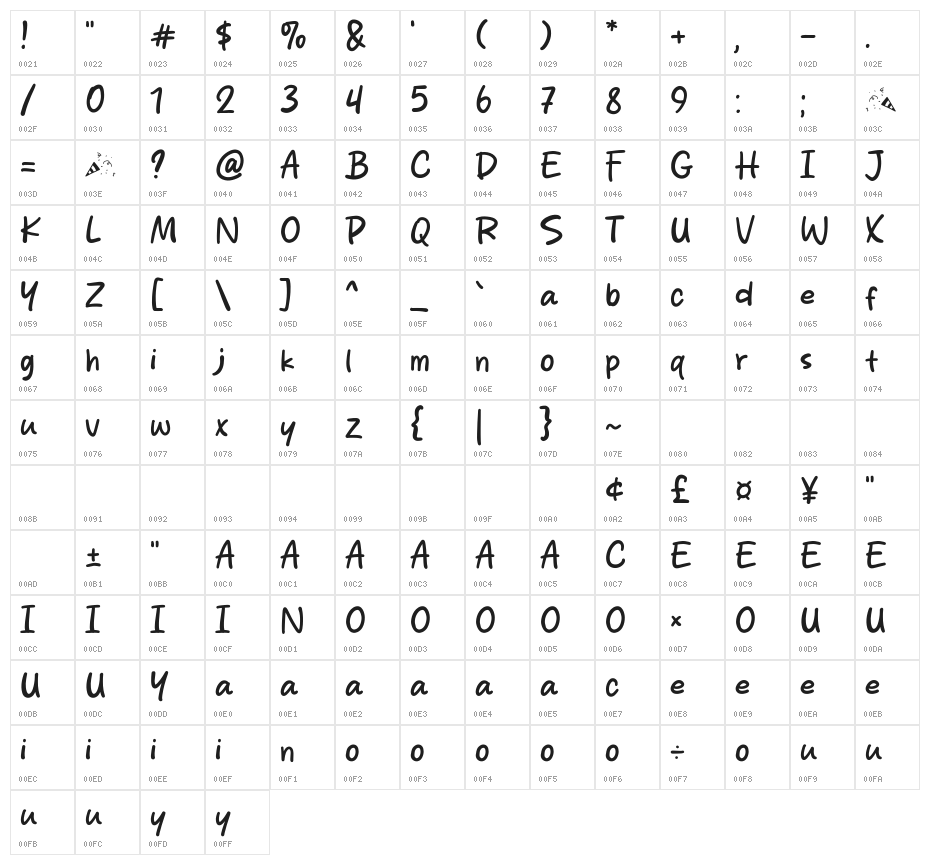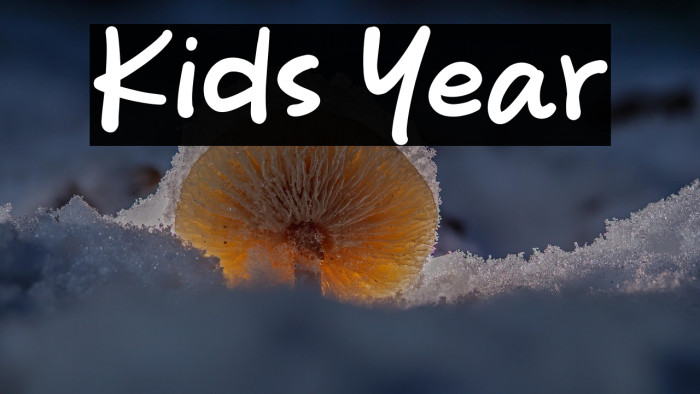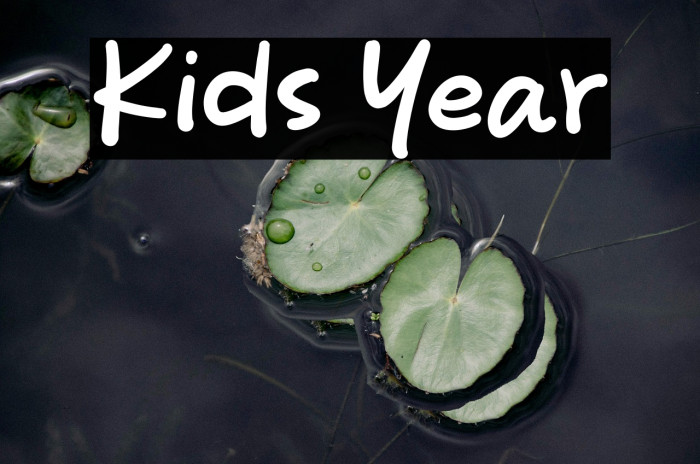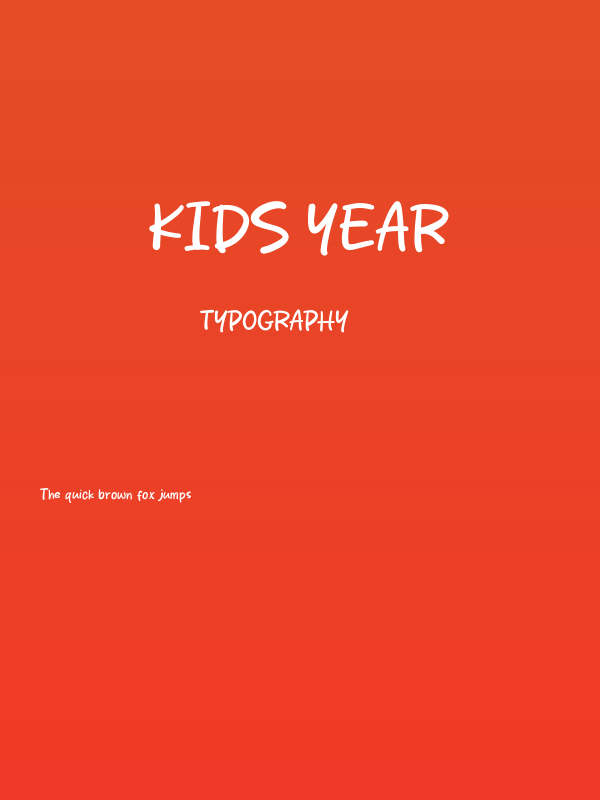
Kids Year Font
Kids Year Description
This playful and informal font exudes a handwritten charm, reminiscent of a child's playful scrawl. The letters are rounded and slightly uneven, giving it a friendly and approachable appearance. The uppercase and lowercase characters maintain a consistent style, with a slight tilt and varying stroke thickness that adds to its casual feel. Numbers and special characters follow the same whimsical design, making it versatile for various creative projects. The font's overall look is lively and energetic, perfect for capturing a youthful and fun spirit.
| Proposed Projects | Ideal for children's books, educational materials, playful branding, and casual invitations. |